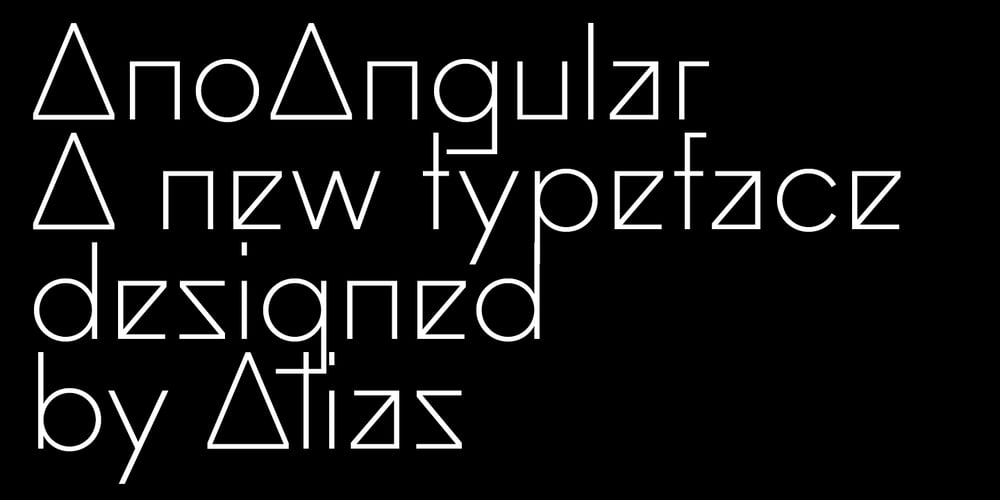
Ano Angular Font Family was designed by Gareth Hague and published by Alias. Ano Angular contains 3 styles and family package options. Ano Angular was originally designed for a fashion company. It was to be used as a headline type, half way between the logo we had designed — made up of straight lines only — and our circle-based Ano typeface, which was to be used for text. Its design is based on the idea of mixing circles with triangles into letter shapes in a modular, constructed way. The effect is digital, mathematical, remeniscent of the typography of 1980s arcade games such as Asteroids.